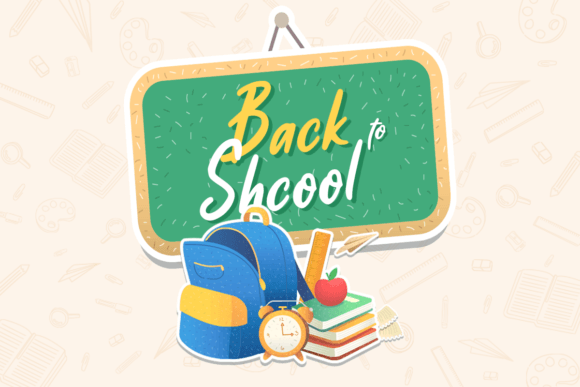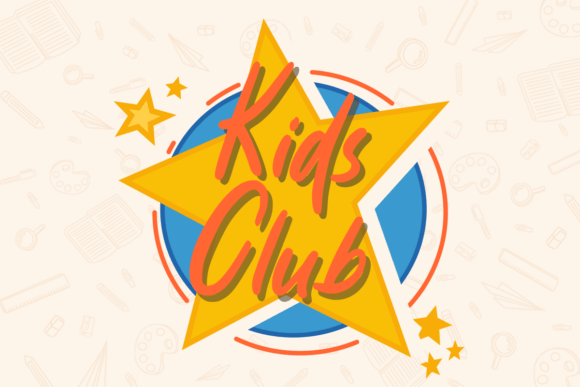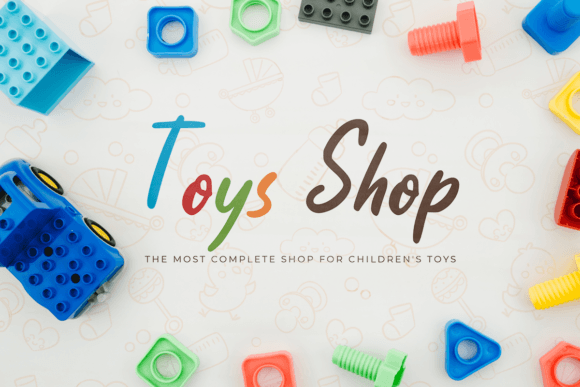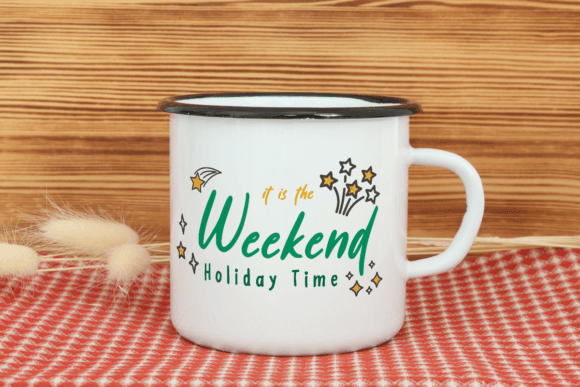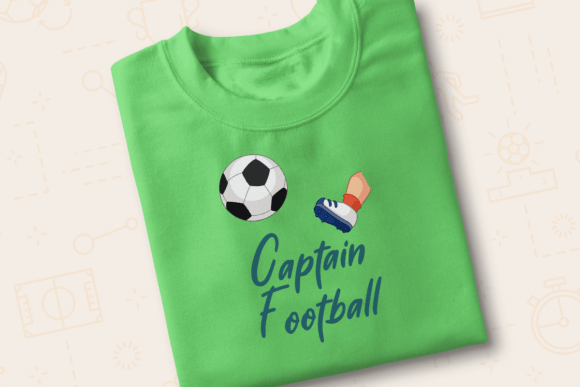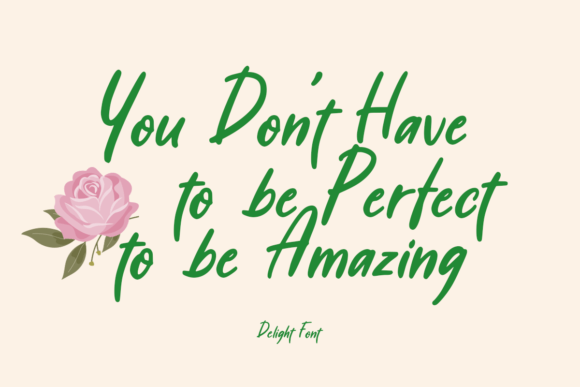
Introducing Delight Font: The Sweet and Friendly Handwritten Font for Your Creative Projects
Are you tired of using the same old fonts for your designs? Look no further! Delight Font is here to add a touch of sweetness and friendliness to your creative projects. This beautiful handwritten font is perfect for designers, crafters, and anyone looking to add a personal touch to their work.
The Unique Style of Delight Font
Delight Font boasts a natural and unique style that makes it incredibly versatile. Its handwritten charm is perfect for a wide range of designs, from invitations and greeting cards to branding and packaging. The font’s sweet and friendly tone is sure to capture the attention of your audience and leave a lasting impression.
The Possibilities are Endless with Delight Font
The only limit to what you can create with Delight Font is your imagination! This font can be used for a wide range of projects, including:
- Invitations and greeting cards: Add a personal touch to your invitations and greeting cards with Delight Font’s sweet and friendly style.
- Branding and packaging: Use Delight Font to create a unique and memorable brand identity that stands out from the crowd.
- Web design: Add a touch of personality to your website with Delight Font’s beautiful handwritten style.
- Social media graphics: Create eye-catching social media graphics with Delight Font’s friendly and approachable tone.
- Stationery and journals: Use Delight Font to create beautiful and unique stationery and journals that are perfect for personal use or as gifts.
Why Choose Delight Font?
So why choose Delight Font for your design projects? Here are just a few reasons:
- Unique and versatile: Delight Font’s unique style makes it perfect for a wide range of design applications.
- Easy to read: Despite its handwritten style, Delight Font is easy to read and understand, making it perfect for body text and headings.
- High-quality: Delight Font is a high-quality font that is designed to look great on any device or platform.
Tips for Using Delight Font
Here are a few tips for using Delight Font in your design projects:
- Use it as a headline font: Delight Font’s unique style makes it perfect for headlines and titles.
- Pair it with other fonts: Delight Font pairs well with other fonts, so don’t be afraid to experiment with different combinations.
- Use it for body text: Delight Font is easy to read, making it perfect for body text and paragraphs.
- Experiment with different colors: Delight Font looks great in a variety of colors, so don’t be afraid to experiment and find the perfect color for your design.
| Font Name | Delight Font |
| Author | sensatype |
In conclusion, Delight Font is a beautiful and versatile handwritten font that is perfect for designers, crafters, and anyone looking to add a personal touch to their work. Its unique style and friendly tone make it incredibly versatile, and its high-quality design ensures that it will look great on any device or platform. So why not give Delight Font a try and see what amazing designs you can create?